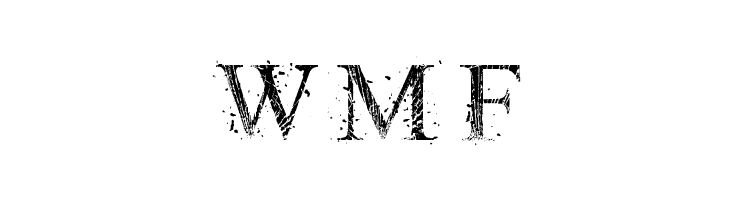
A serif font with architectural pediment designs, exuding classical elegance.
An elegant serif font with a classic italic style and smooth, flowing lines.
A classic serif font with strong, pronounced serifs and a timeless aesthetic.
A classic serif font with elegant strokes and balanced structure.
A bold, classic serif font with medium contrast and elegant curves.
A classic serif font with an elegant italic slant, offering a sophisticated and traditional appearance.
A bold serif typeface with strong serifs and a classic, elegant style.
A futuristic, geometric font with rounded edges and uniform strokes.
A classic serif font with strong readability and a cohesive design, suitable for formal and editorial use.
A classic serif font with calligraphic influences and elegant, angular serifs.
A classic serif font with sharp, angular serifs and a formal, elegant style.
A bold, high-contrast serif font with dramatic strokes and classic elegance.
An abstract, geometric font with artistic and symbolic character designs.
A classic serif typeface with a clean, traditional design and typewriter-inspired aesthetics.
A whimsical and decorative font with elongated, curved strokes and playful flourishes.
An elegant italic font with a classic and sophisticated style.
An elegant serif typeface with a classic italic style and moderate contrast.
A bold, serif font with strong, authoritative strokes and classic design.
A bold serif typeface with high contrast and strong, classic serifs.
A bold, classic serif font with high contrast and pronounced serifs.
A decorative, grunge-style font with textured, artistic characters.
A bold, classic serif font with high contrast and elegant serifs.
A bold, classic serif font with strong strokes and subtle curves.
A bold, classic serif font with strong, pronounced strokes.
A bold, distressed font with a grunge texture, ideal for edgy designs.
A classic slab serif typeface with strong serifs and moderate stroke contrast.
A classic serif font with elegant, sharp serifs and balanced proportions.
A sleek, italic font with a futuristic and dynamic design.